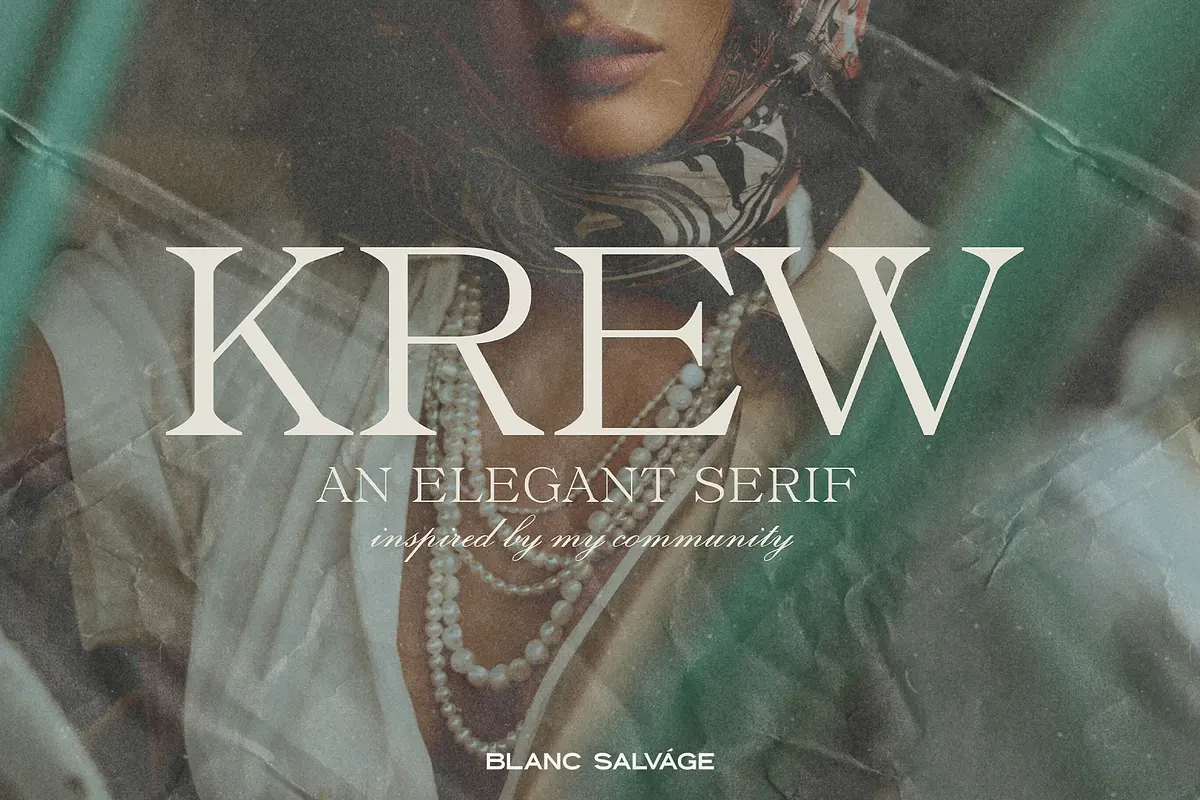
Krew Elegant Serif Font Free Download is a refined and sophisticated serif typeface designed to bring a sense of luxury and professionalism to any design project. With its beautifully balanced letterforms and subtle high-contrast serifs, this font is perfect for branding, editorial layouts, logos, invitations, and more.
The Krew font combines timeless elegance with modern appeal, offering a clean, polished aesthetic that is both versatile and stylish. Its legibility and sophisticated design make it ideal for both print and digital projects, ensuring that your typography looks sharp and impactful.
Add a touch of class and sophistication to your designs with the elegant style of Krew!